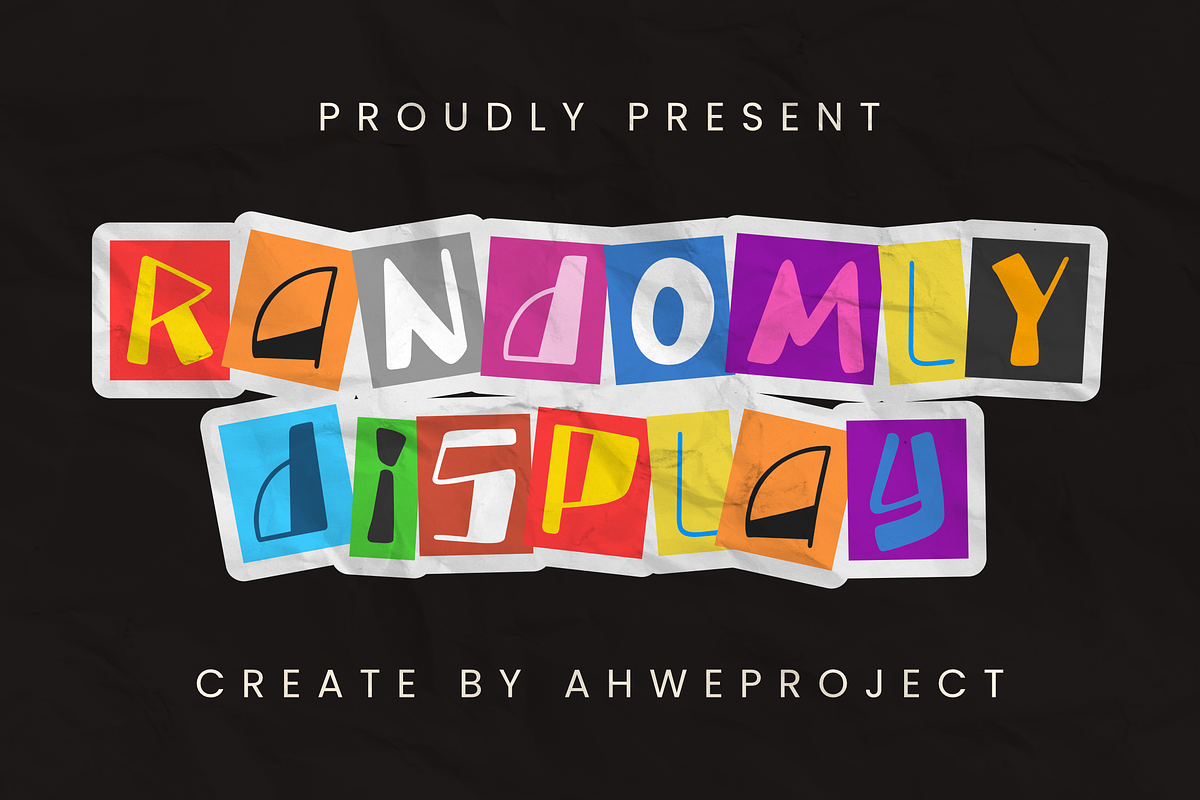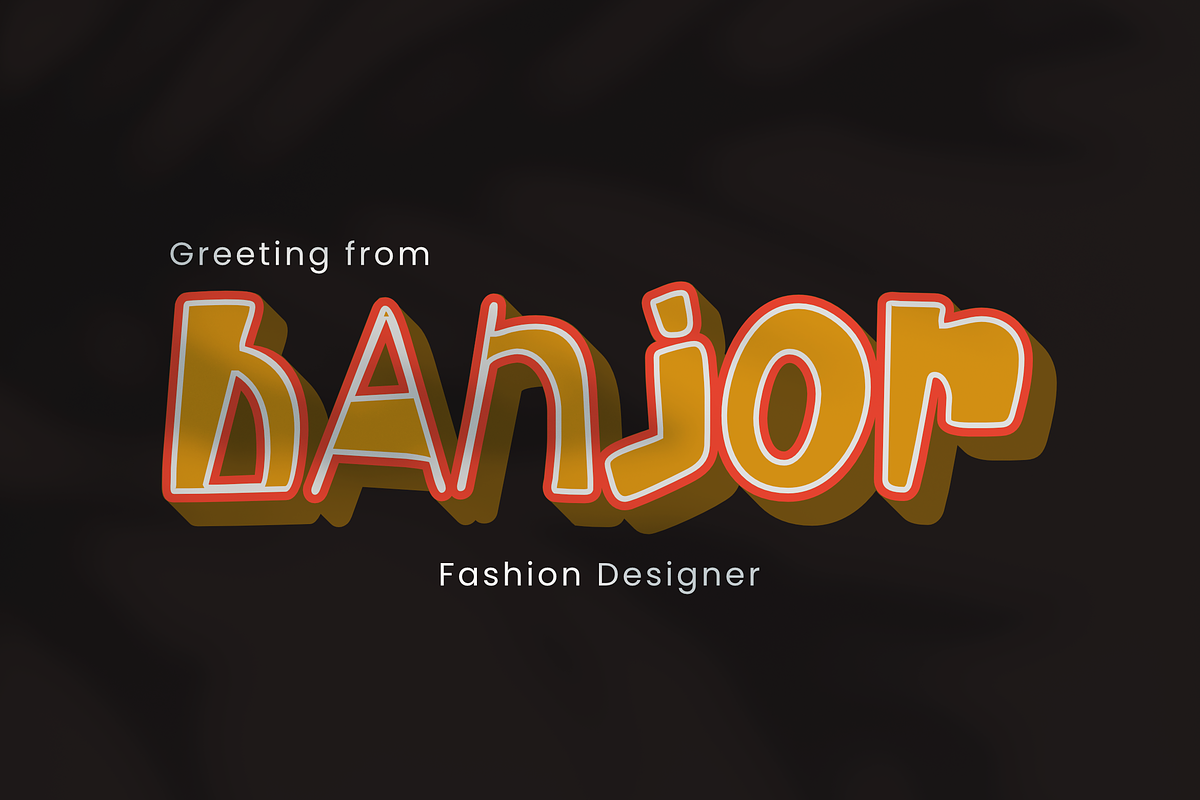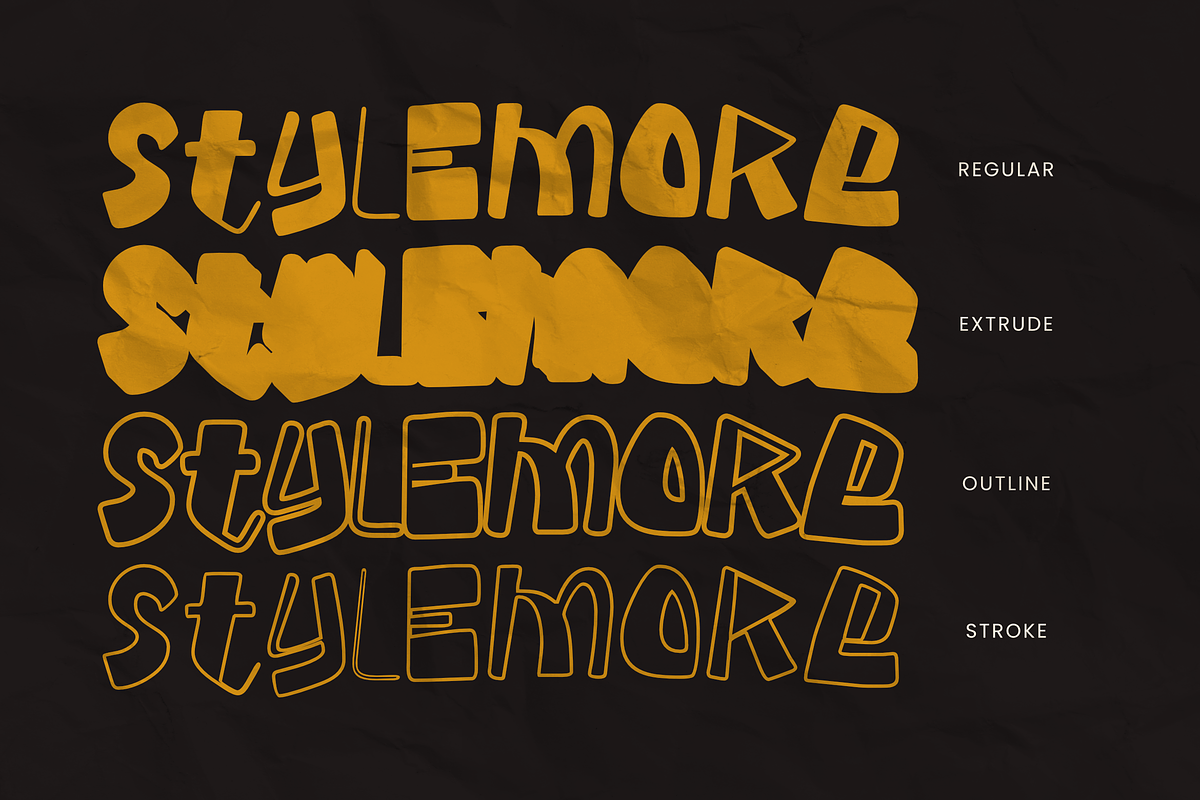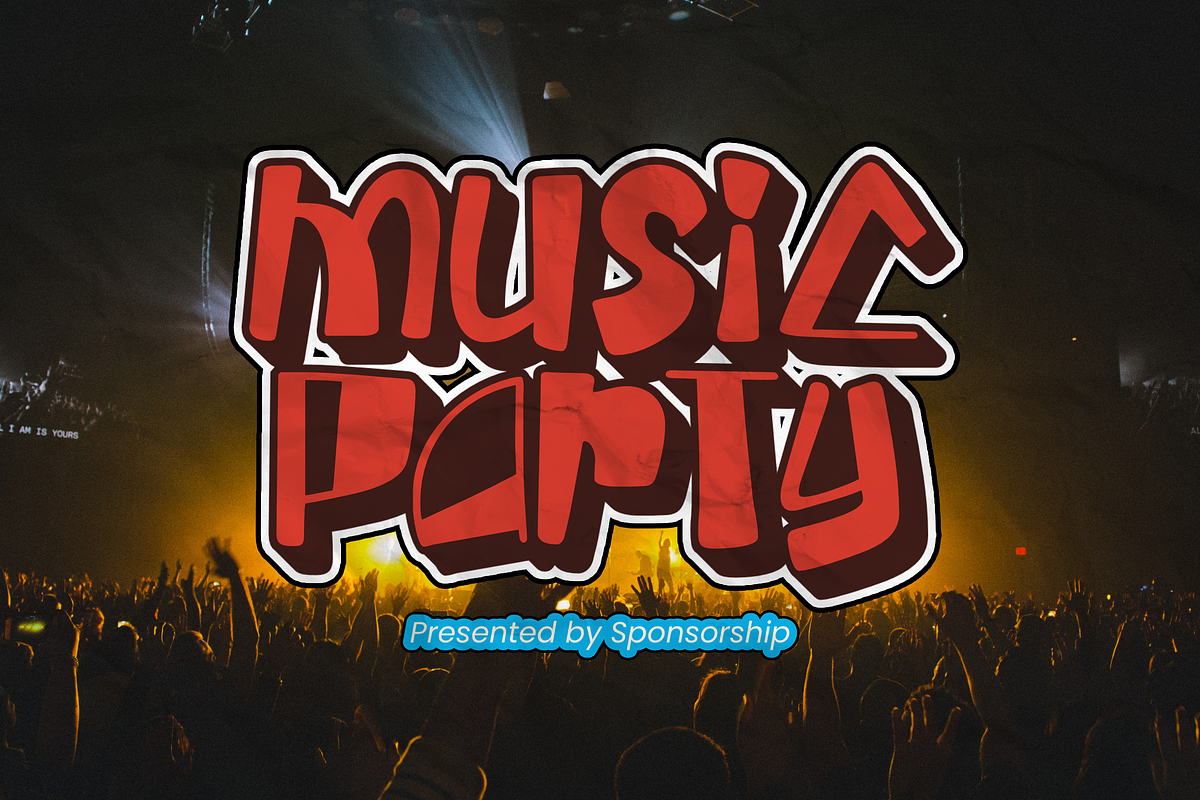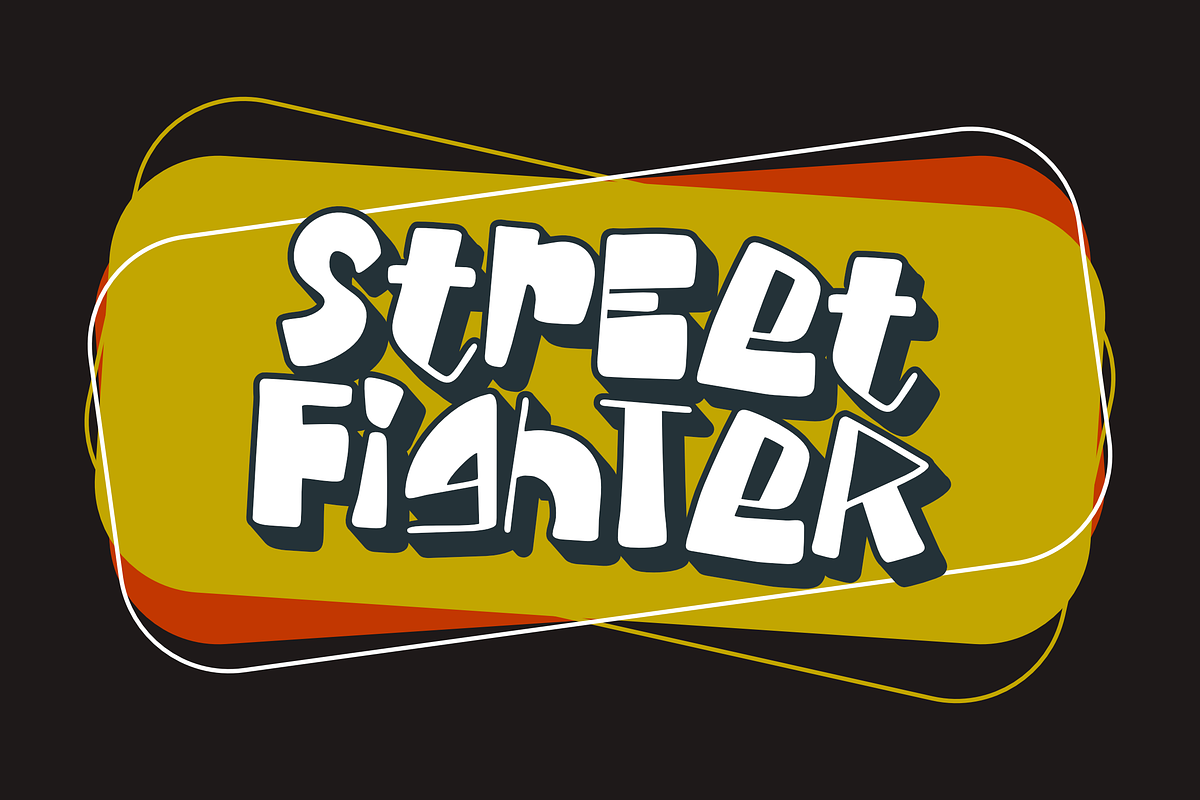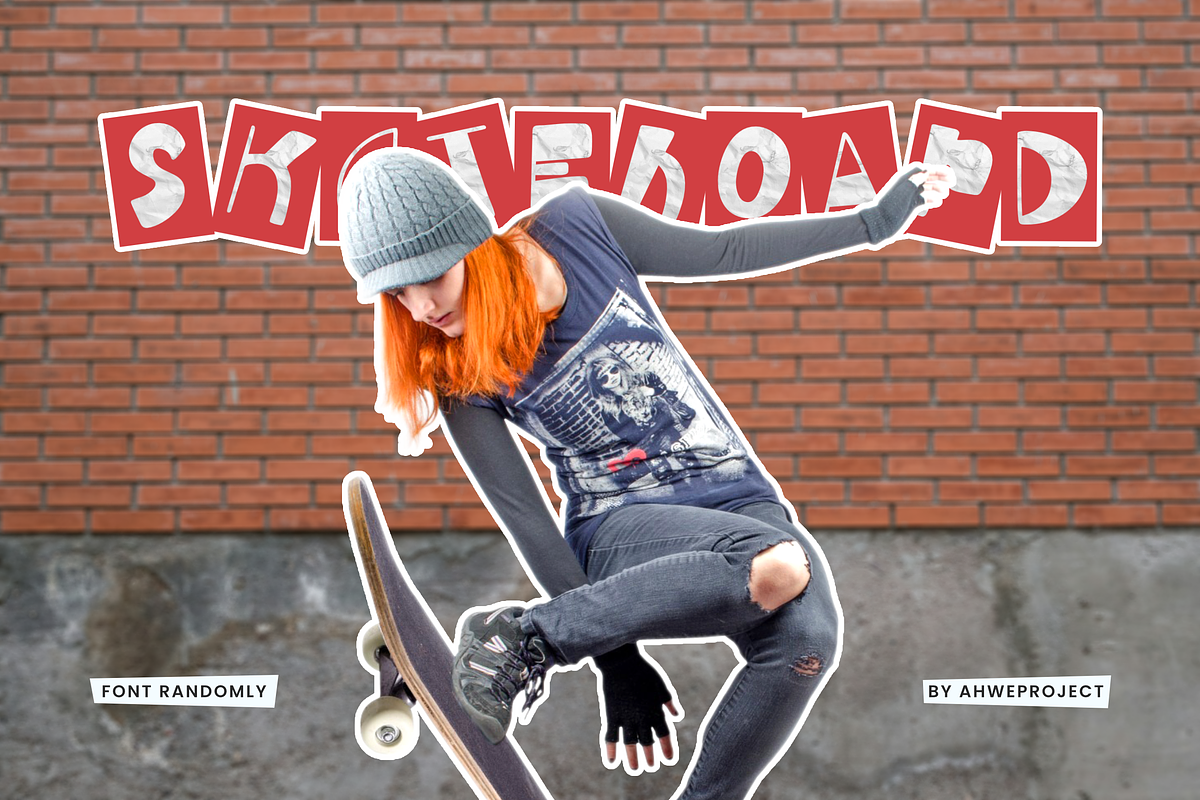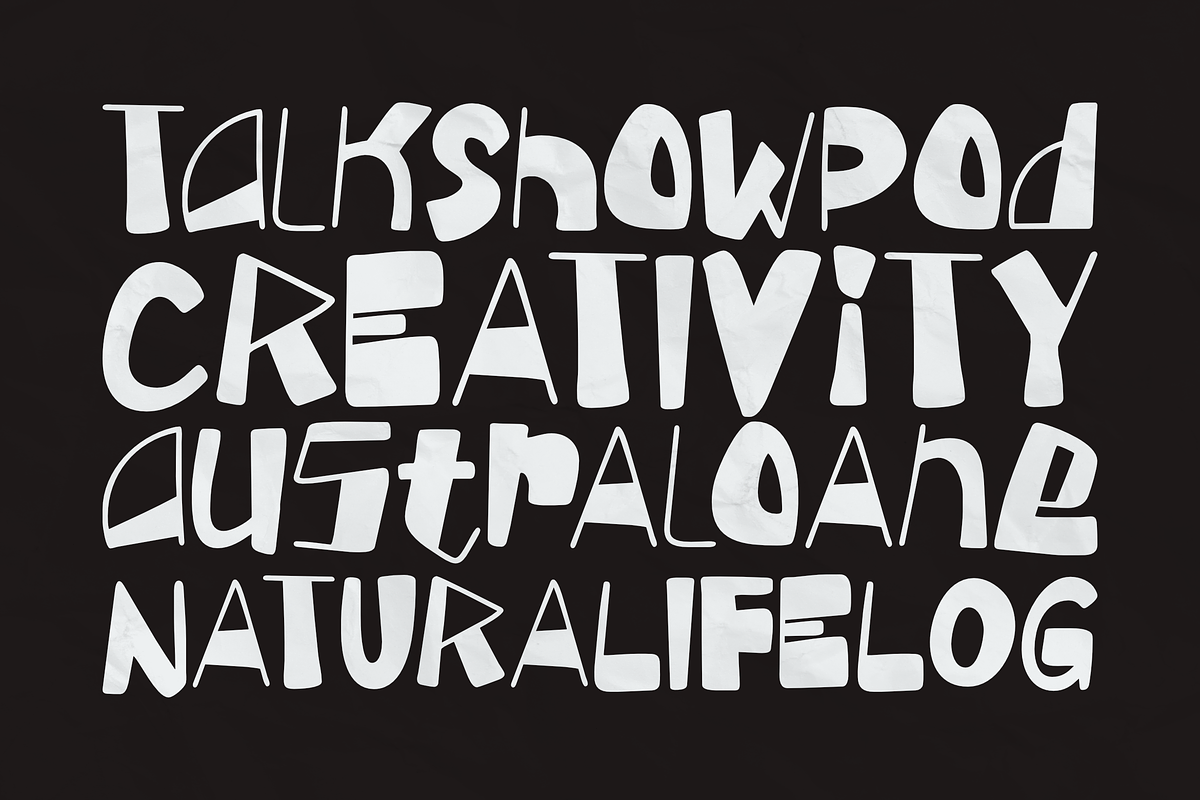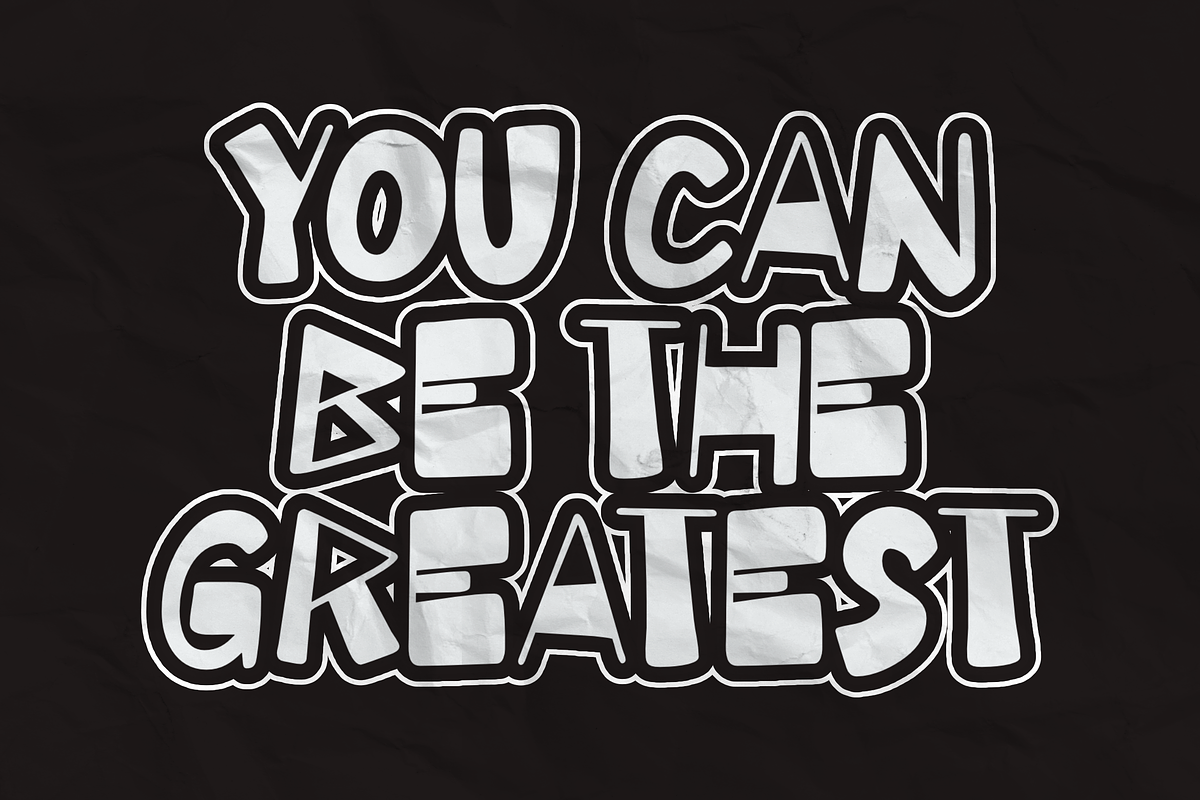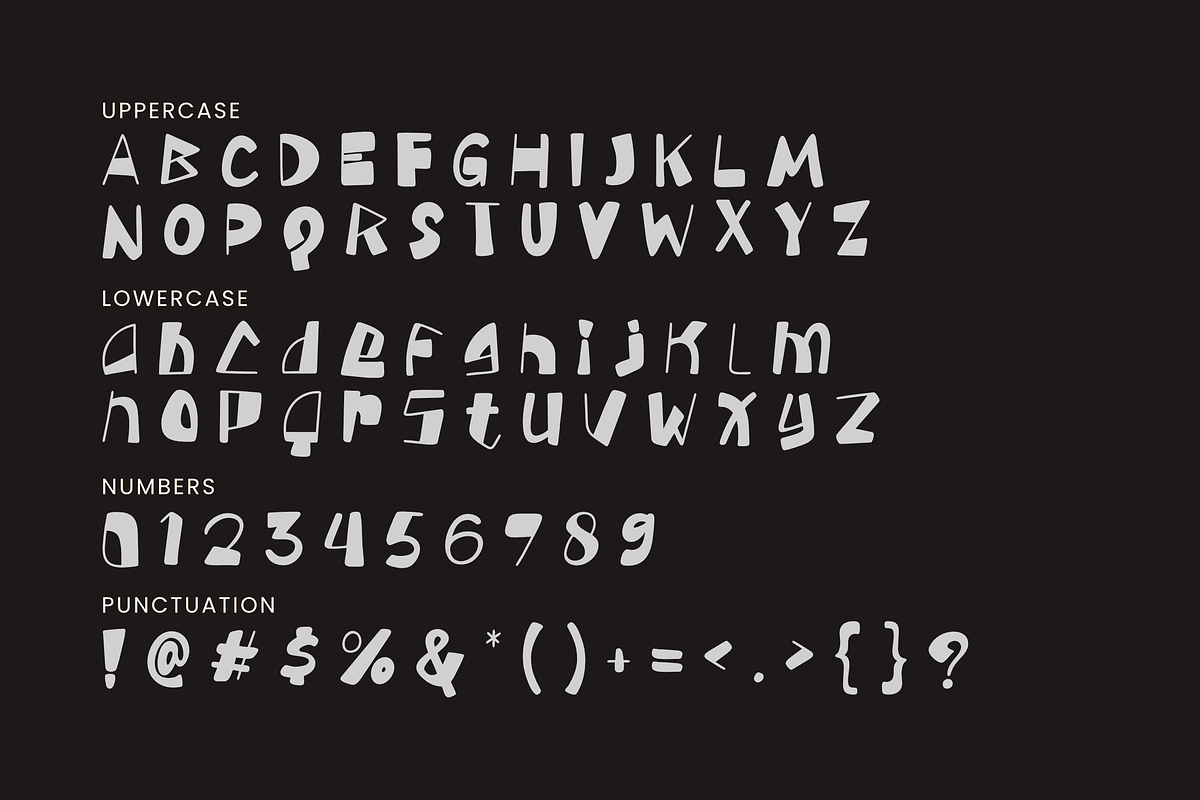
Randomly
Immerse yourself in the unique charm of Randomly, a brilliantly designed display font that dares to be different. With each letter boasting an array of sizes defying standard size rules, Randomly is far from ordinary. This font is the perfect partner for designs longing to embody a nostalgic, retro vibe, enabling your creative visions to burst into a visual symphony of vintage allure.